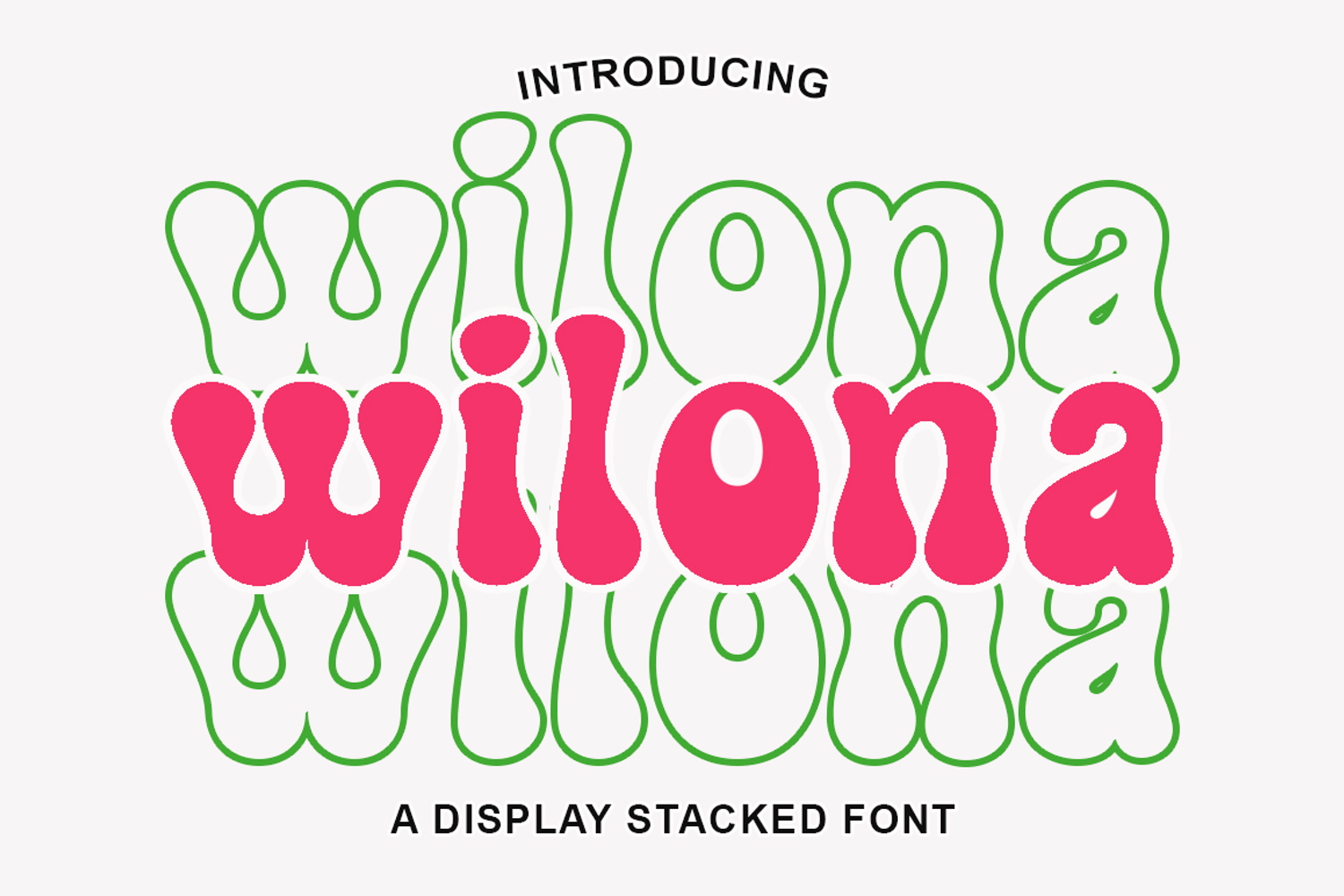
Wilona
"Wilona," a bold display font.
This trendy display font is perfect for social media or craft projects. Use it for branding, decorative crafts, invitations, and more!